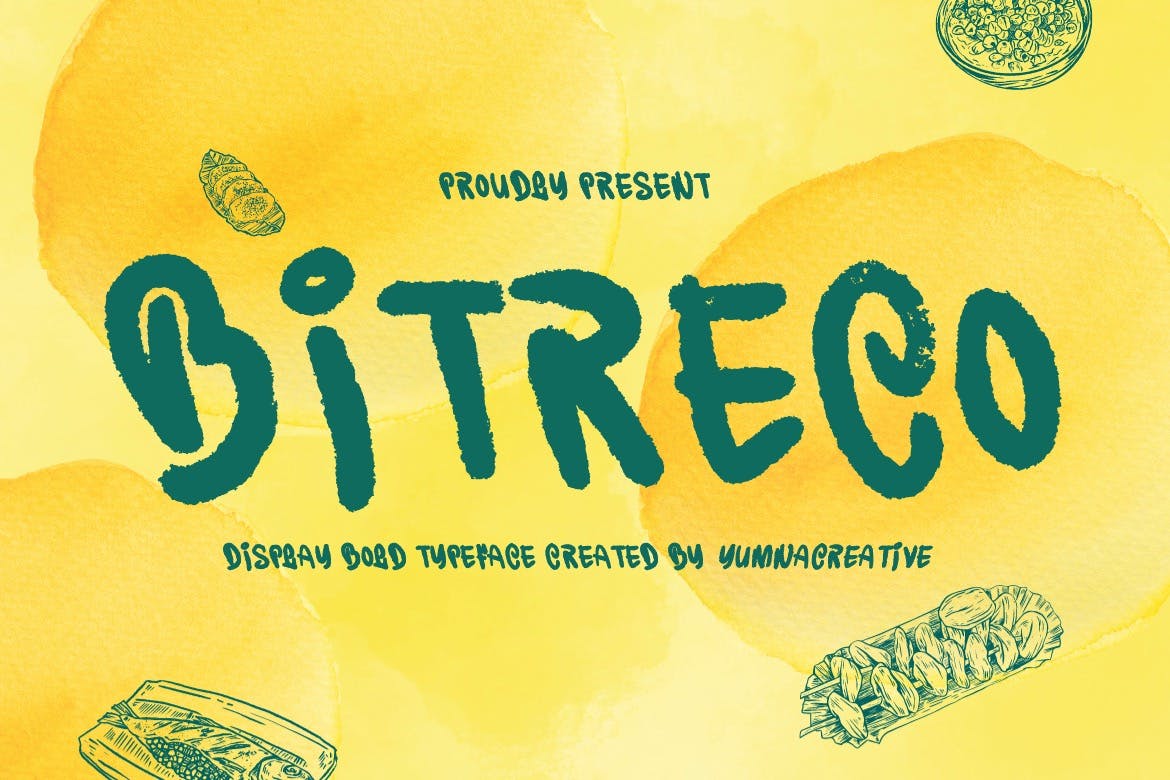
Bitreco - Display Bold Font
Bitreco - Display Bold Font is perfect for powerful headline design, impactful advertising campaigns, bold poster typography, strong brand identity, commanding web headers, dynamic logo creation, aggressive marketing materials, striking signage systems, and attention-grabbing editorial headlines.
What makes Bitreco - Display Bold Font exciting is its commanding presence that delivers maximum visual impact through bold letterforms and optimized display performance that cuts through visual noise and demands immediate attention. This powerful typeface features robust character construction, confident stroke weights, and assertive personality that creates instant recognition and memorable brand communication. The font's fearless attitude and uncompromising strength make it ideal for brands that need to communicate authority, confidence, and market leadership through typography that dominates competitive environments and drives decisive action.
Bitreco - Display Bold Font family includes multiple power variations: Bold, ExtraBold, Black, Condensed Bold, Extended Bold, and Ultra Bold versions. Each style maintains the distinctive bold display aesthetic while offering different levels of visual intensity and width options, providing designers with comprehensive tools for creating dramatic typographic hierarchies and commanding display systems that capture attention.
The Bitreco - Display Bold Font Free Download delivers premium bold typography that transforms ordinary headlines into compelling visual statements that command respect and drive engagement. This font excels in competitive industries, technology companies, sports brands, and aggressive marketing campaigns where bold visual communication is essential for market differentiation and audience impact. The optimized bold construction ensures maximum readability at all display sizes.
Design professionals choose Bitreco - Display Bold Font for its ability to convey strength and authority through typography alone. The font's powerful character and bold construction work exceptionally well in both digital displays and large-format print applications. Its commanding presence appeals to audiences seeking confidence, reliability, and decisive leadership in brand communications.
The comprehensive character set includes power symbols, technical elements, and extensive multilingual support that enhances the bold aesthetic. Bitreco - Display Bold Font Free Download enables creative teams to explore dynamic combinations and high-impact applications before investment.
Whether used for technology startup branding or established corporate campaigns, Bitreco - Display Bold Font consistently delivers powerful typography that captures attention, communicates strength, and creates memorable visual impact that resonates with audiences seeking bold confidence and authoritative design solutions.